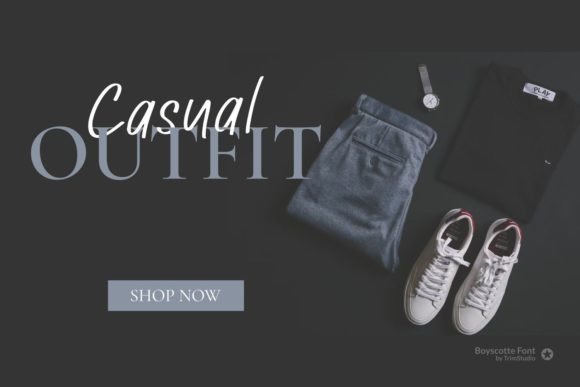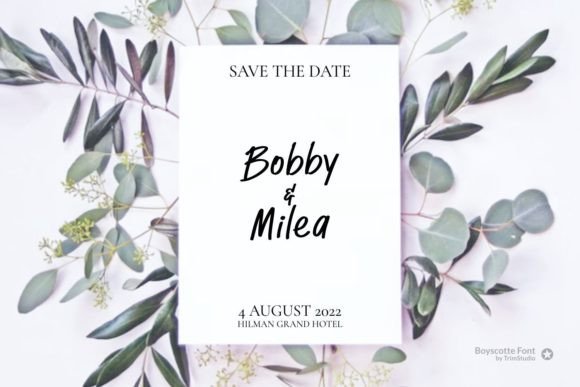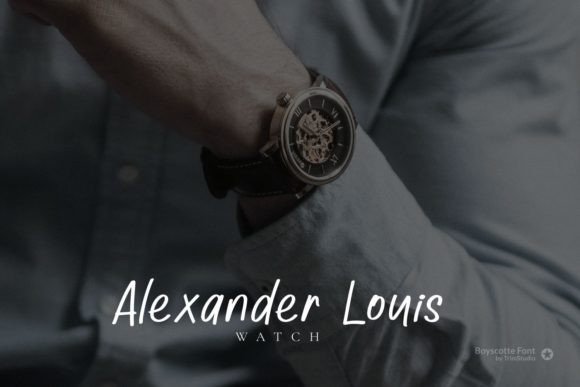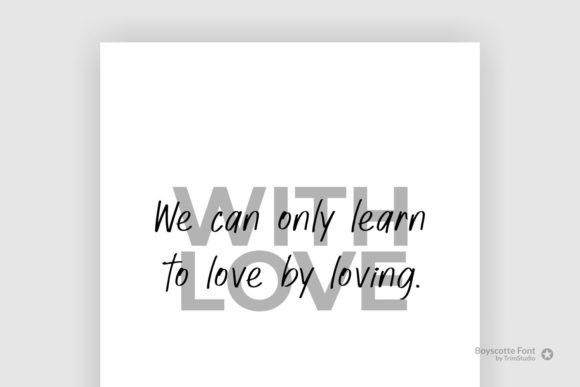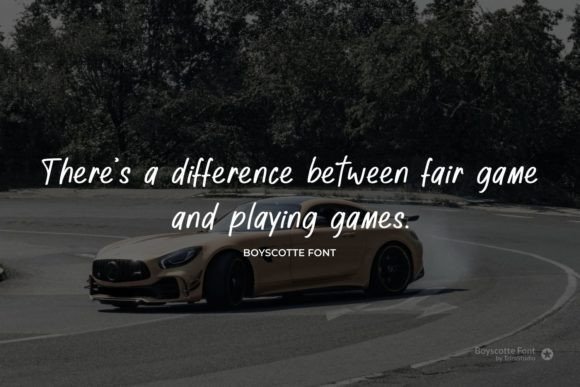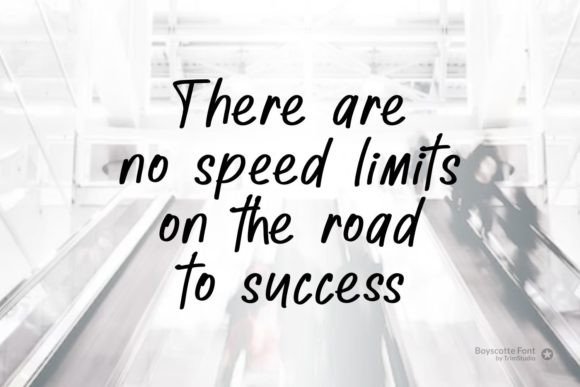
Introduction to Boyscotte Font
Enhance the sophistication of your projects with Boyscotte’s stunning handwriting font.
Its fluid lines and elegant curves make it ideal for adding a touch of grace, perfect for wedding invitations, social media graphics, or branding materials It is also PUA encoded which means you can access all of the glyphs and swashes with ease.
Key Features of Boyscotte Font
Why Choose Boyscotte Font?
Boyscotte Font offers exceptional quality and versatility, making it a valuable addition to your design toolkit. Whether you’re creating for personal projects or commercial use, Boyscotte Font delivers professional results.